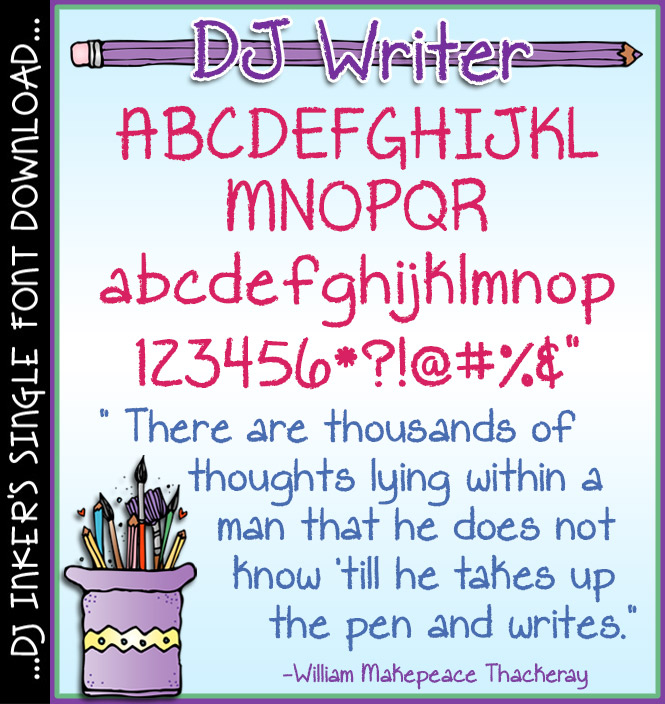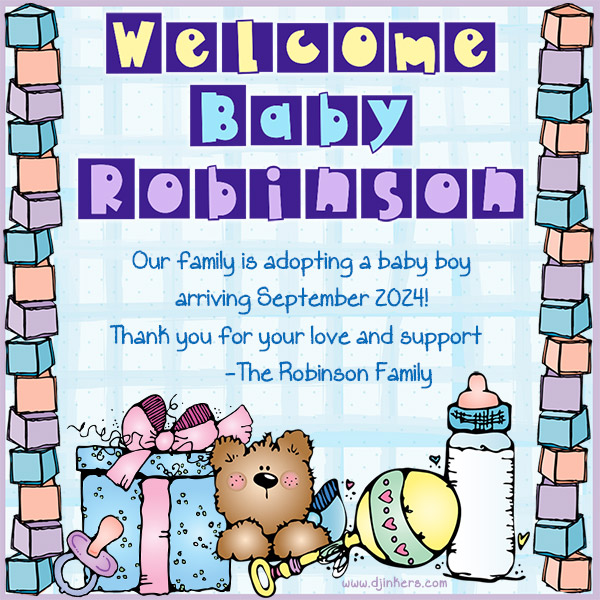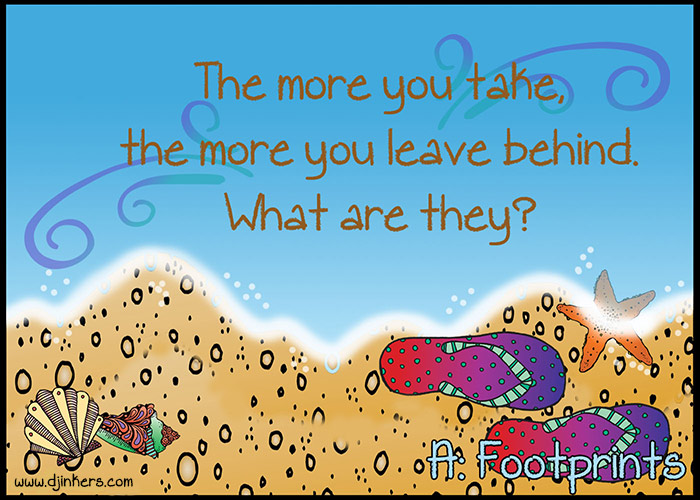
DJ Writer is a fun hand written font for creative smiles by DJ Inkers
Give your projects a neat handwritten look with texture and creative flair!  Just use our DJ Writer font.  Perfect for classroom activities, notes, worksheets, journals, and more, this font is sure to add personality to your projects and make your work stand out with a smile.